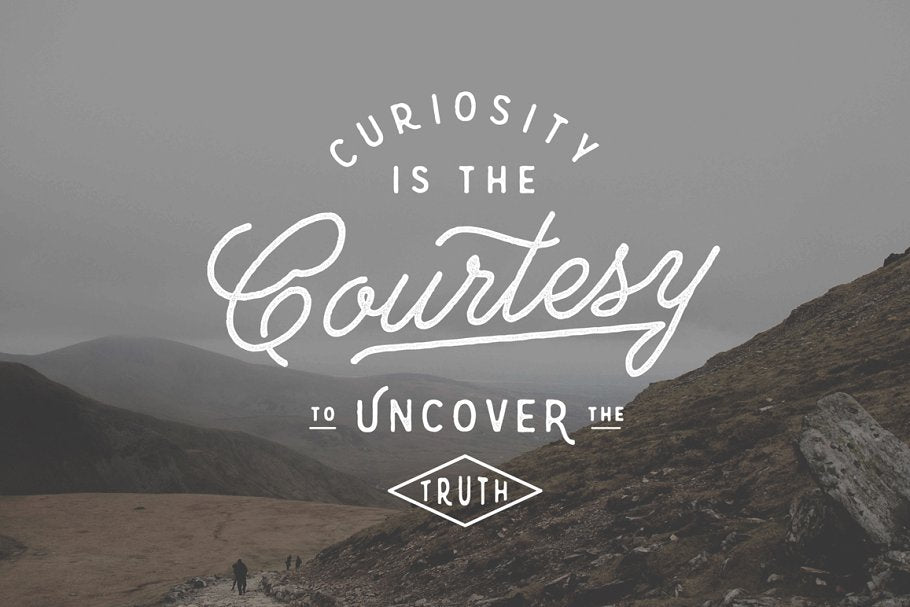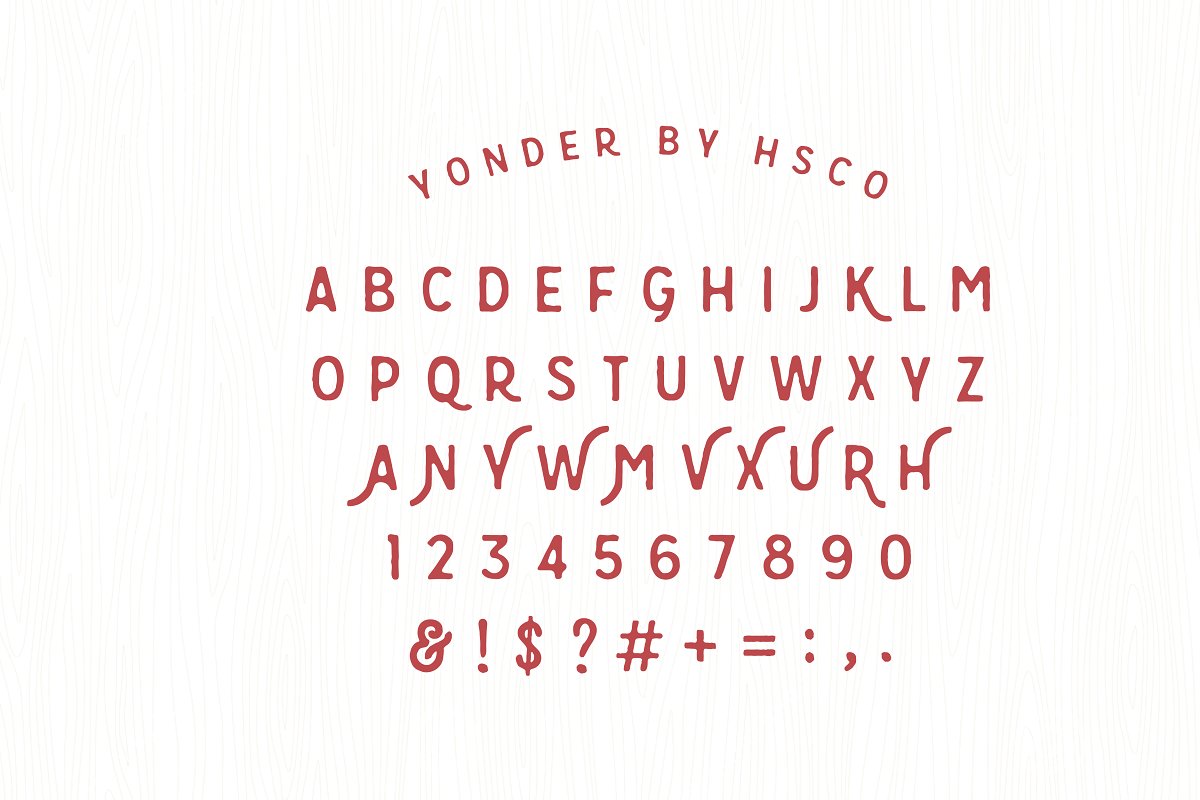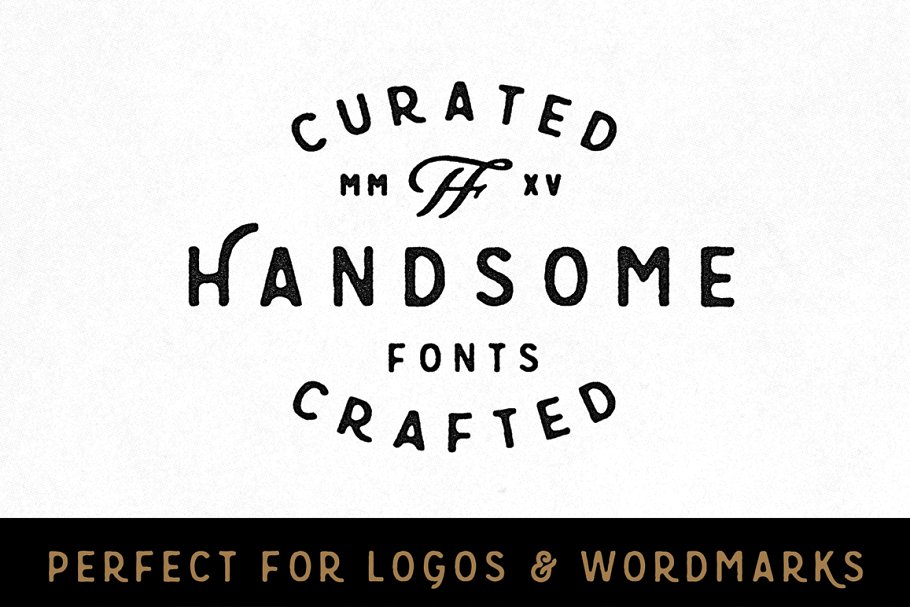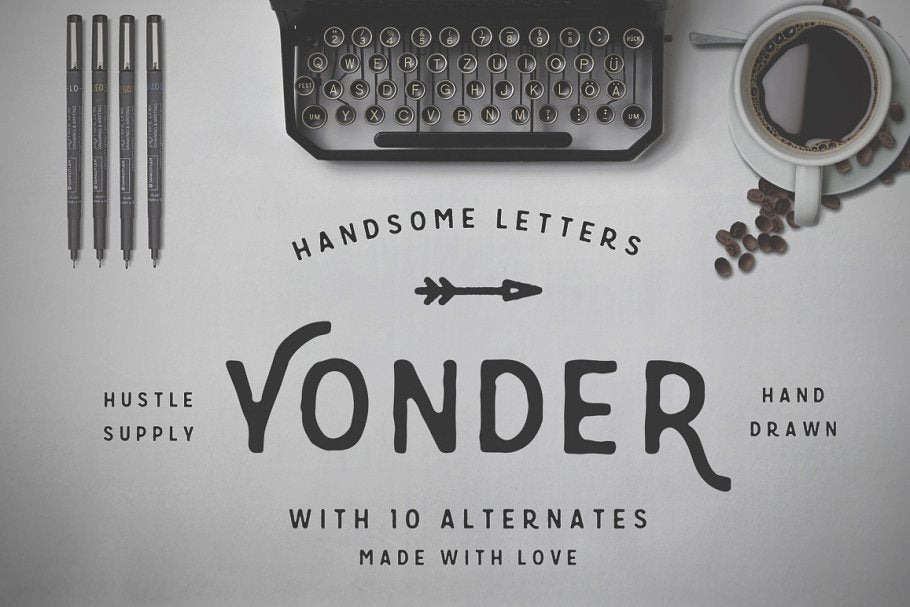
Yonder - Hand Drawn Font
Yonder is a new font to add to the Hustle Supply Co product family. I created this font in response to the huge demand I see for typefaces of this style. It couples very well with script fonts and gives each piece a sense of character. Look no further for a playful typeface that will give your design the overall aesthetic that is so popular today. This font comes in .OTF format and includes 10 numbers, Various Glyphs, 26 letters with 10 alternates that promise a hand drawn look. Grab it now for the Introductory rate of only $15.